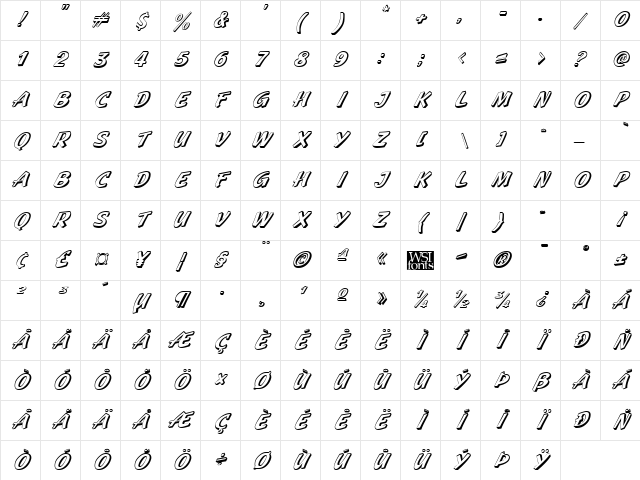
Complete Gecko Italic glyph index. Displaying only characters natively supported by Gecko Italic font.
Gecko is a composed and adaptable typeface that performs quietly and consistently across a wide range of design contexts. The slanted form adds forward momentum and visual energy.
Pro Tip: Use Gecko for emphasis, pull quotes, and subheadings where its slanted energy can add rhythm to the layout.